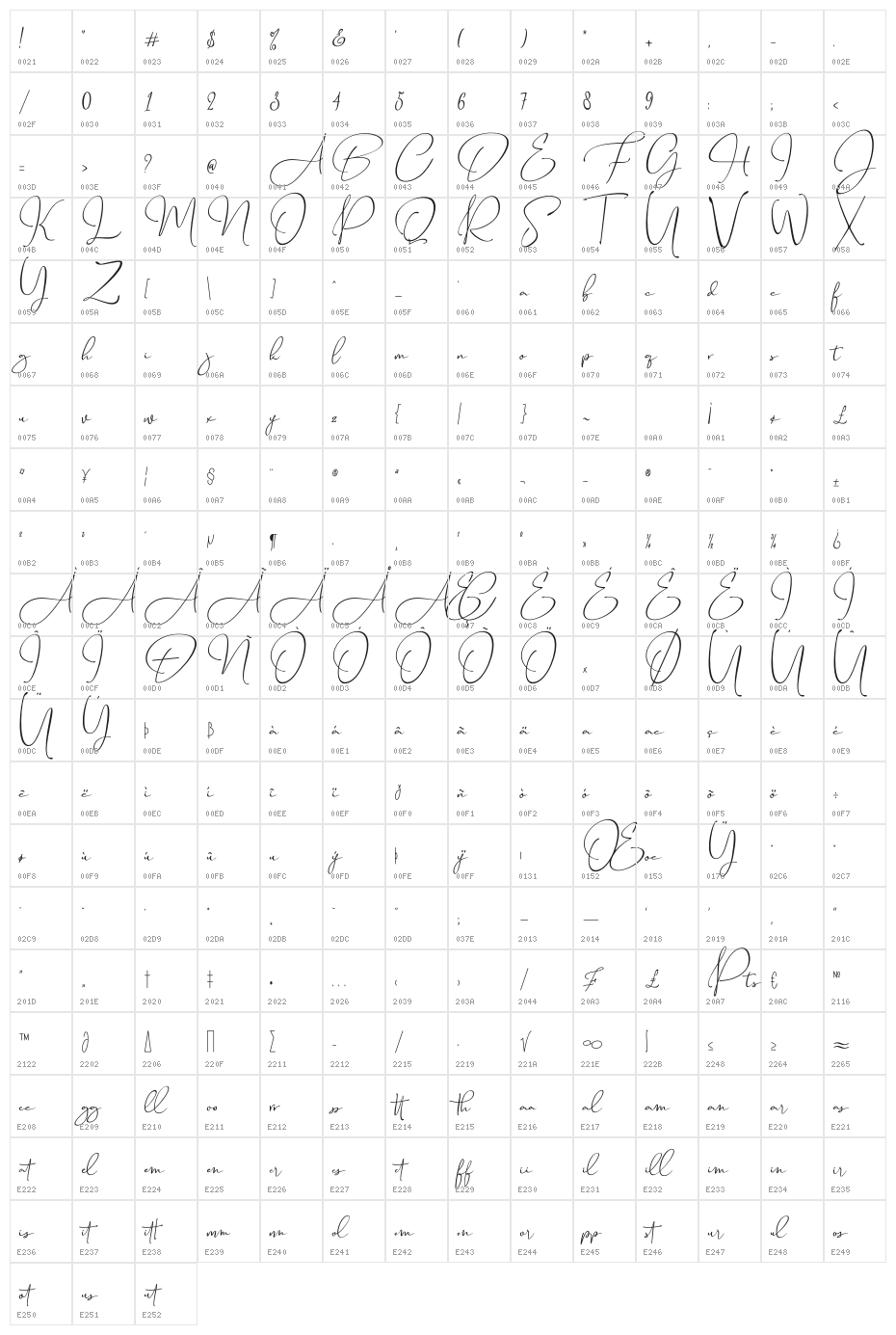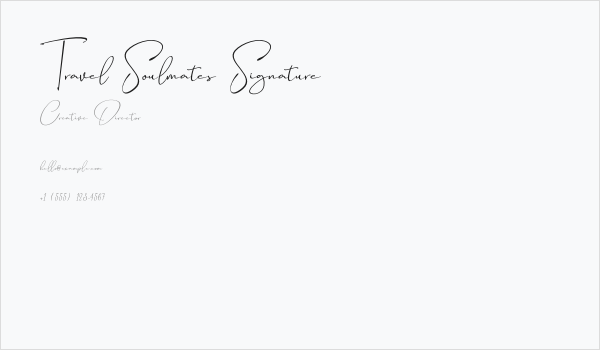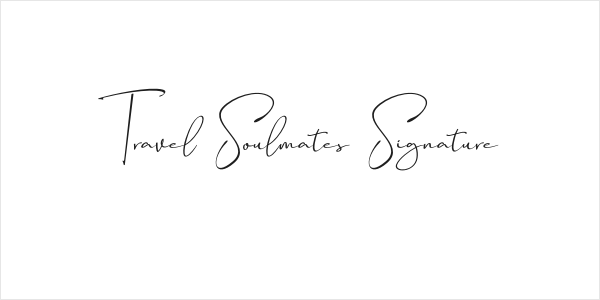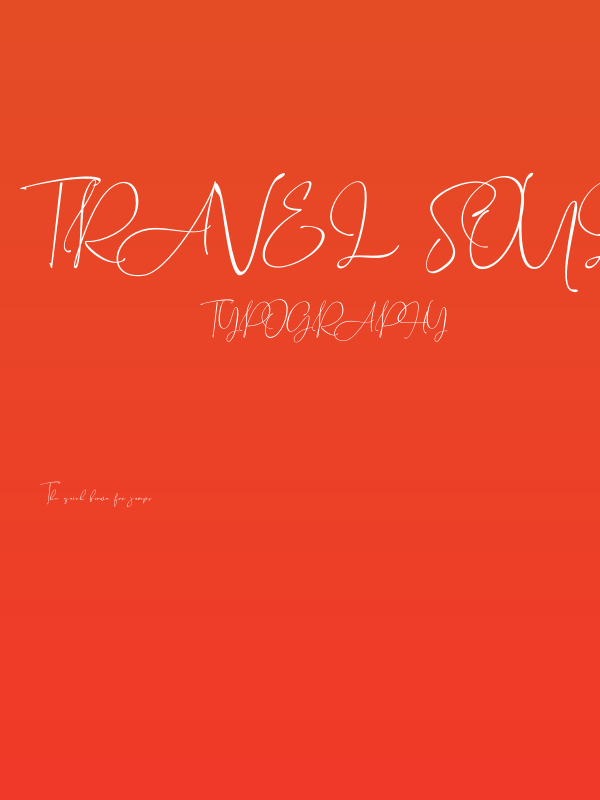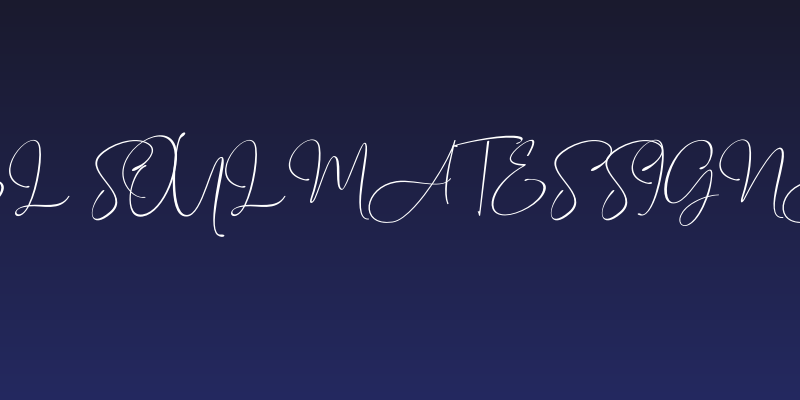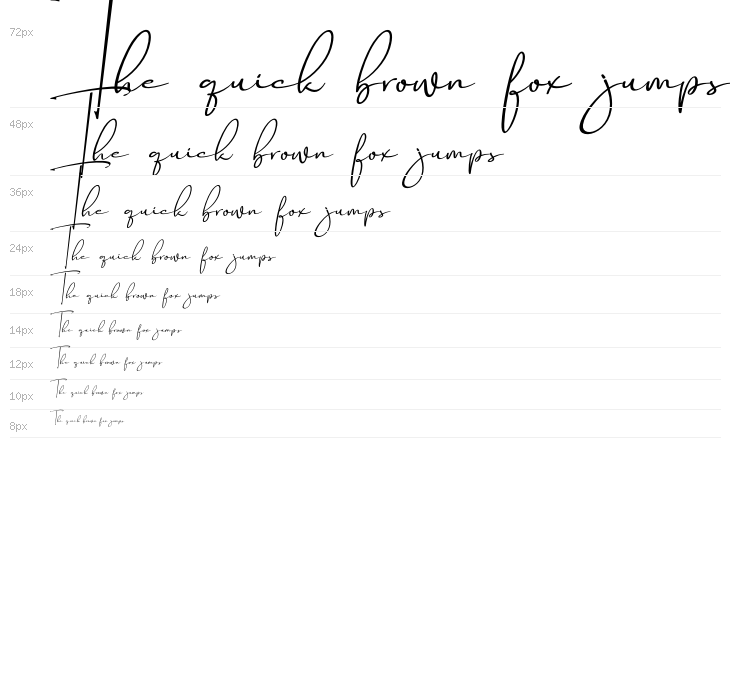
Travel Soulmates Signature Font
Travel Soulmates Signature Description
This font exudes elegance and sophistication with its flowing, cursive style. The uppercase letters are characterized by their sweeping, elongated strokes, giving a sense of movement and grace. The lowercase letters maintain a consistent fluidity, with some characters featuring loops and flourishes that enhance the script's decorative appeal. The numerals are clear and legible, maintaining the same elegant style as the alphabet. Special characters are thoughtfully designed to complement the overall aesthetic, making this font ideal for creative and artistic projects. Its hand-drawn appearance adds a personal touch, making it suitable for branding, invitations, and other design elements that require a touch of elegance.
| Overall Style | Elegant, Decorative |
| Proposed Projects | Ideal for wedding invitations, branding, logos, and artistic projects requiring a personal touch. |